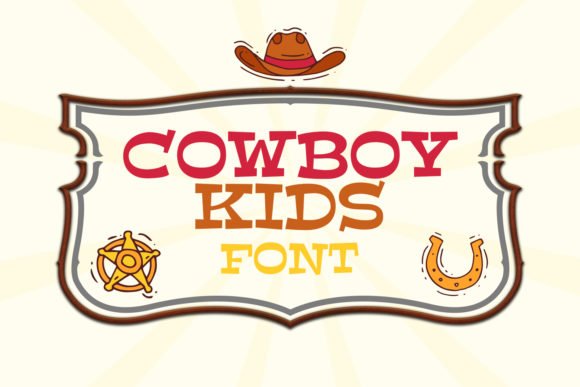
Get Ready to Saddle Up Your Designs with the Wild West Charm of Cowboy Kids Font
You’ve been brainstorming for hours, pouring your heart and soul into your latest design project. The ideas are flowing, but something’s missing – that special something that sets your creation apart from the rest. That’s where the magic of typography comes in, and for designers looking to add a touch of the wild west to their work, there’s one font that’s sure to ride off into the sunset with you: Cowboy Kids Font.
This masterfully designed western display font is the perfect companion for any creative project, from rustic advertisements to vintage-inspired graphics. With its unique charm and character, Cowboy Kids Font has the power to elevate your designs to new heights, making it a valuable addition to any designer’s toolkit. Whether you’re a seasoned pro or just starting out, this font is sure to become a true favorite – and a go-to for adding that special retro touch to your work.
Cowboy Kids Font Key Features
- Unique Characteristics: The Cowboy Kids font features a playful, hand-drawn design with a mix of Western and rustic elements, making it perfect for creating a unique and eye-catching visual identity.
Cowboy Kids Font Review
When I first laid eyes on the Cowboy Kids Font, I couldn’t help but think of the Wild West and all its charm. This font has a unique, playful quality to it that’s sure to add some character to any design project. ✨ The font’s irregular letterforms and quirky feel make it perfect for creating a sense of nostalgia and whimsy.
Here are some of the things that work well with this font:
- ✨ Unique and playful feel: The Cowboy Kids Font is not your run-of-the-mill serif or sans-serif font. Its eclectic design makes it stand out from the crowd.
- ✨ Perfect for children’s content: With its lighthearted and carefree vibe, this font is ideal for kids’ books, magazines, or any other content aimed at a younger audience.
- ✨ Great for adding a vintage touch: The Cowboy Kids Font has a distinct retro feel that’s perfect for designers looking to add a touch of nostalgia to their designs.
- ⚠️ Limited flexibility: While the Cowboy Kids Font is perfect for certain types of projects, it may not be the best choice for more formal or professional designs.
- ⚠️ May not be suitable for small text: The font’s irregularities can make it difficult to read in smaller text sizes, so be sure to test it out before using it in a live project.
Overall, the Cowboy Kids Font is a fun and quirky addition to any designer’s toolkit. While it may not be the best choice for every project, it’s perfect for designers looking to add a playful touch to their designs.
Cowboy Kids font is perfect for:
- Western-themed designs and branding.
- Children’s book illustrations and design.
- Outdoor and adventure-related designs.